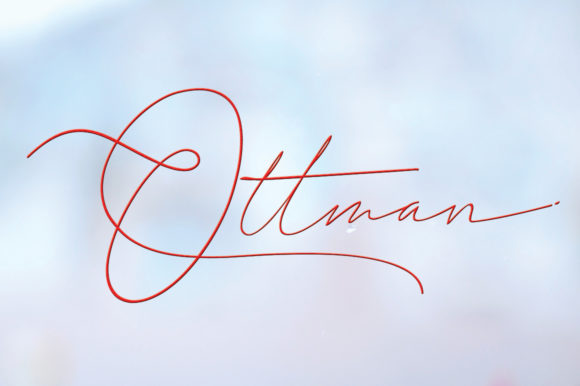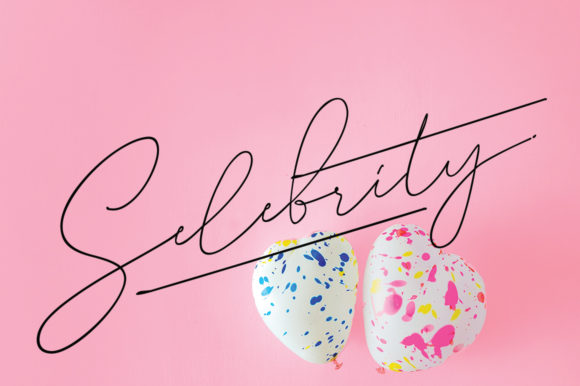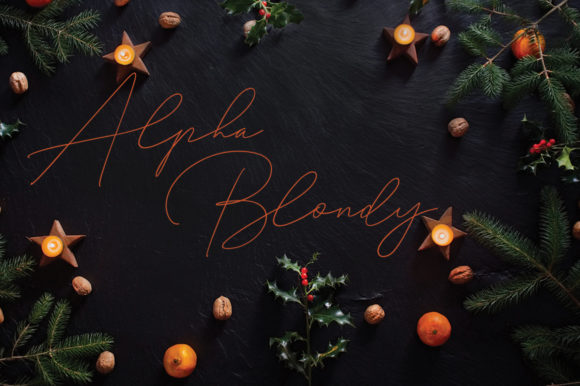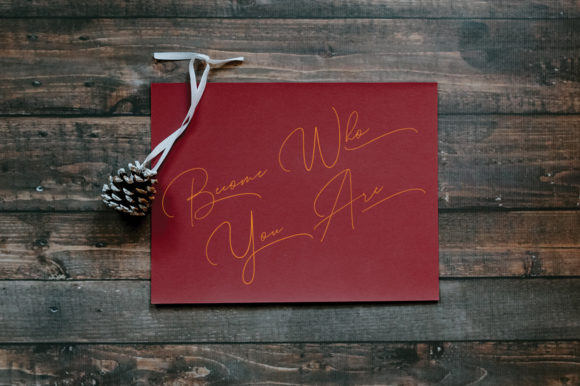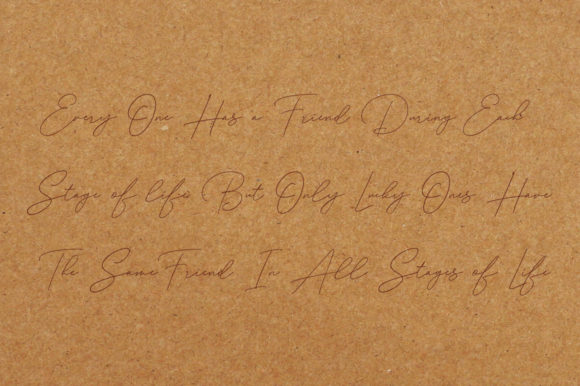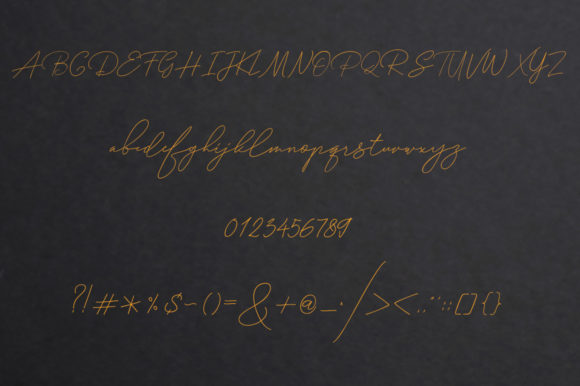
Introduction to Outhentape Font
Have you ever been working on a creative project, pouring your heart and soul into the design, and suddenly, the perfect font eludes you? It’s a frustrating feeling, but one that Outhentape Font is here to alleviate. This stunning script font is designed to elevate your designs to the next level, with its beautiful swashes and elegant letters that will leave a lasting impression.
Whether you’re a seasoned designer or just starting out, Outhentape Font is an invaluable resource that will take your high-quality designs to new heights. With its transparent background, it’s the perfect design resource for any creative project. And the best part? It’s available for free download, making it an accessible and affordable addition to your design arsenal.
Get ready to unlock the full potential of your designs with Outhentape Font. Its unique charm is sure to captivate your audience and make your designs stand out from the crowd. So why settle for ordinary when you can have extraordinary? Dive into the world of Outhentape Font and discover the magic it can bring to your creative projects.
Key Features of Outhentape Font
- High-quality, customizable font suitable for creative projects, including digital art, graphics, and design work.
- Transparent background, allowing for seamless integration with various design resources and backgrounds.
- Unique, hand-drawn design with intricate details and textures, perfect for adding a personal touch to any project.
- Size: Includes 6 font styles (Regular, Bold, Italic, Bold Italic, Outline, and Shadow), providing versatility for various design needs.
- Designed to be a valuable design resource for artists, designers, and creatives working on a wide range of projects.
Honest Review: Outhentape Font
As a designer, I’m always on the lookout for high-quality design resources that can elevate my creative projects. Recently, I stumbled upon the Outhentape Font, and I’m excited to share my honest review with you.
The Outhentape Font is a fantastic addition to any designer’s toolkit, offering a unique and versatile aesthetic that’s perfect for a variety of design applications. ✨ One of the standout features of this font is its transparent background, which makes it incredibly easy to use and combine with other design elements.
Here are some of the things that work well with the Outhentape Font:
- High-quality design: The Outhentape Font is meticulously crafted, with crisp lines and precise letterforms.
- Customizable: The Outhentape Font can be easily customized to suit your design needs, thanks to its flexible and adaptable nature.
However, I did encounter a few limitations when using the Outhentape Font:
- ⚠️ Limited font sizes: While the font is versatile, it may not be suitable for very large or very small font sizes.
- ⚠️ Some characters may not render correctly: I encountered some issues with certain characters not rendering properly, particularly when used in combination with other fonts.
Overall, I’m impressed with the Outhentape Font and would highly recommend it to designers looking for a high-quality, free design resource. With a little experimentation and patience, I’m confident that you’ll find this font to be a valuable addition to your design toolkit.
Common Use Cases for Outhentape Font
The Outhentape Font is perfect for various creative projects, including logos, social media graphics, and presentations. Its high quality and transparent background make it an ideal choice for designers looking for a versatile design resource.